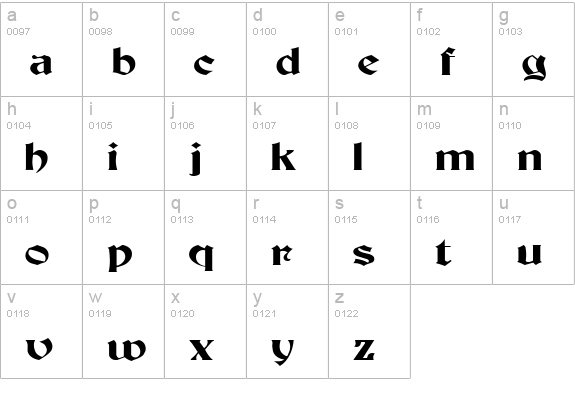
Brandywine-Extended Normal is the standard, neutral, extended-width variant in the Brandywine typeface family \xE2\x80\x94 well suited to general body text, paragraphs, and standard typographic work.
Brandywine-Extended Normal is a sophisticated and elegant font that exudes a timeless charm. With its clean lines and classic design, this font is perfect for adding a touch of refinement to any project. The extended character set allows for versatility in various design applications, making it a versatile choice for both print and digital use. Best of all, Brandywine-Extended Normal is available for free download at FontsMarket.com, making it easily accessible to all designers and creatives looking to elevate their work with a touch of sophistication. Don't miss out on the opportunity to enhance your projects with this exquisite font that seamlessly blends style and readability.